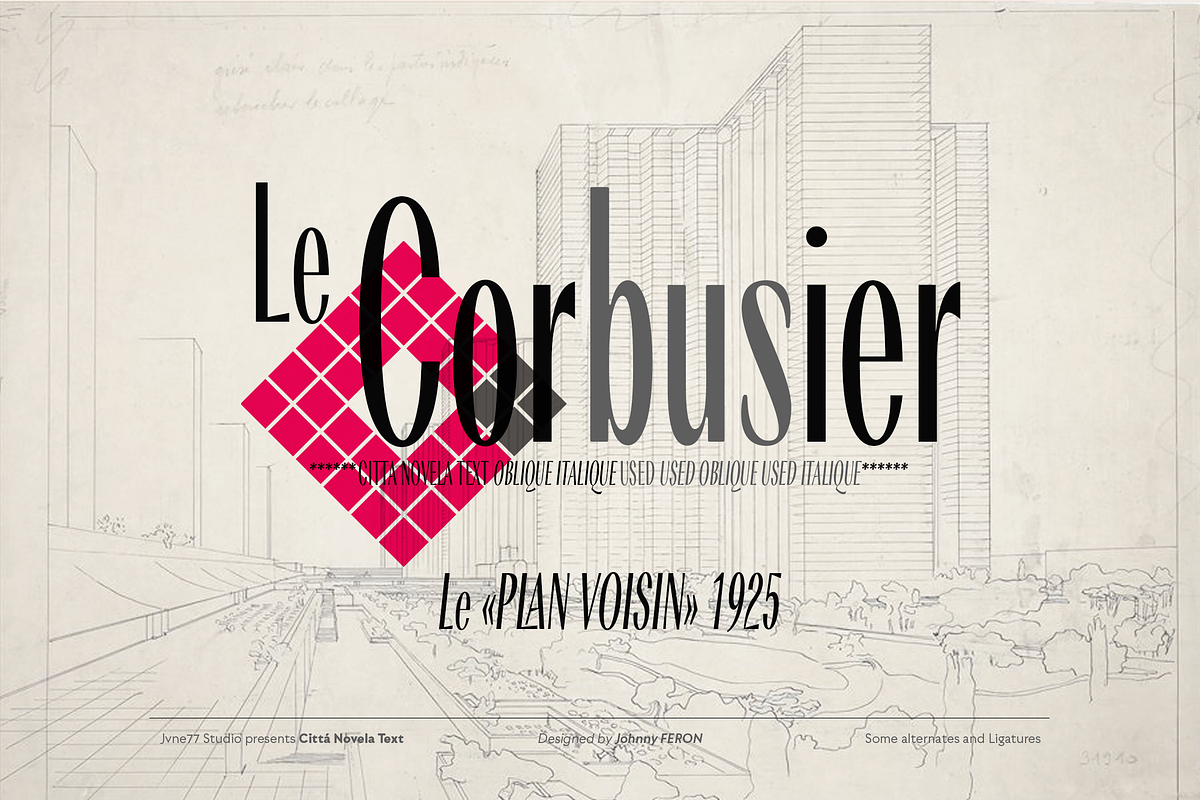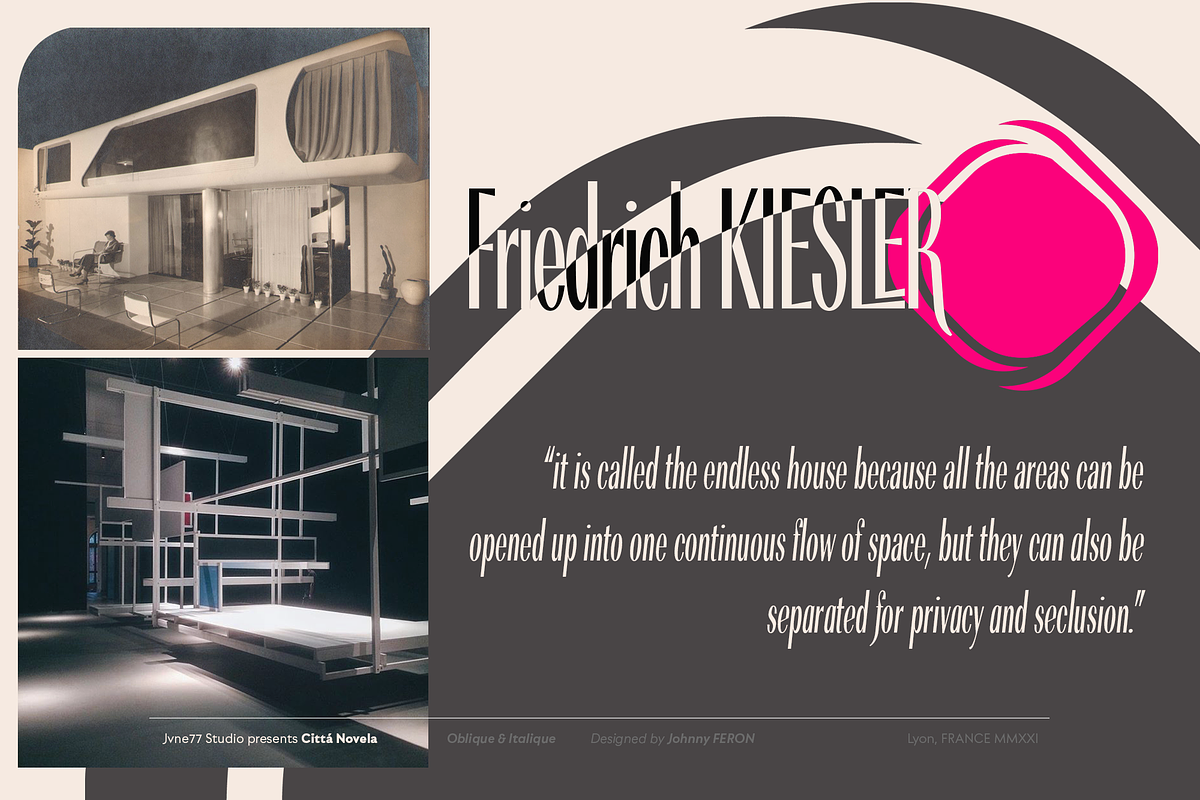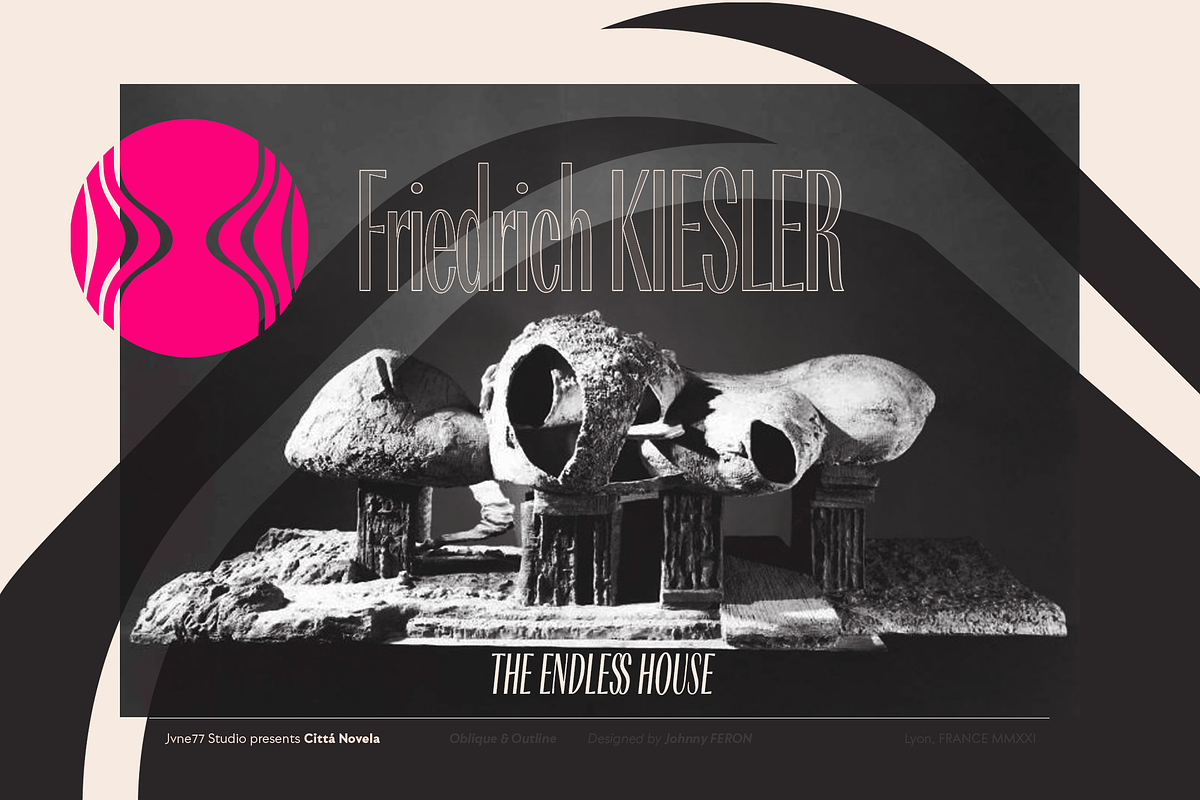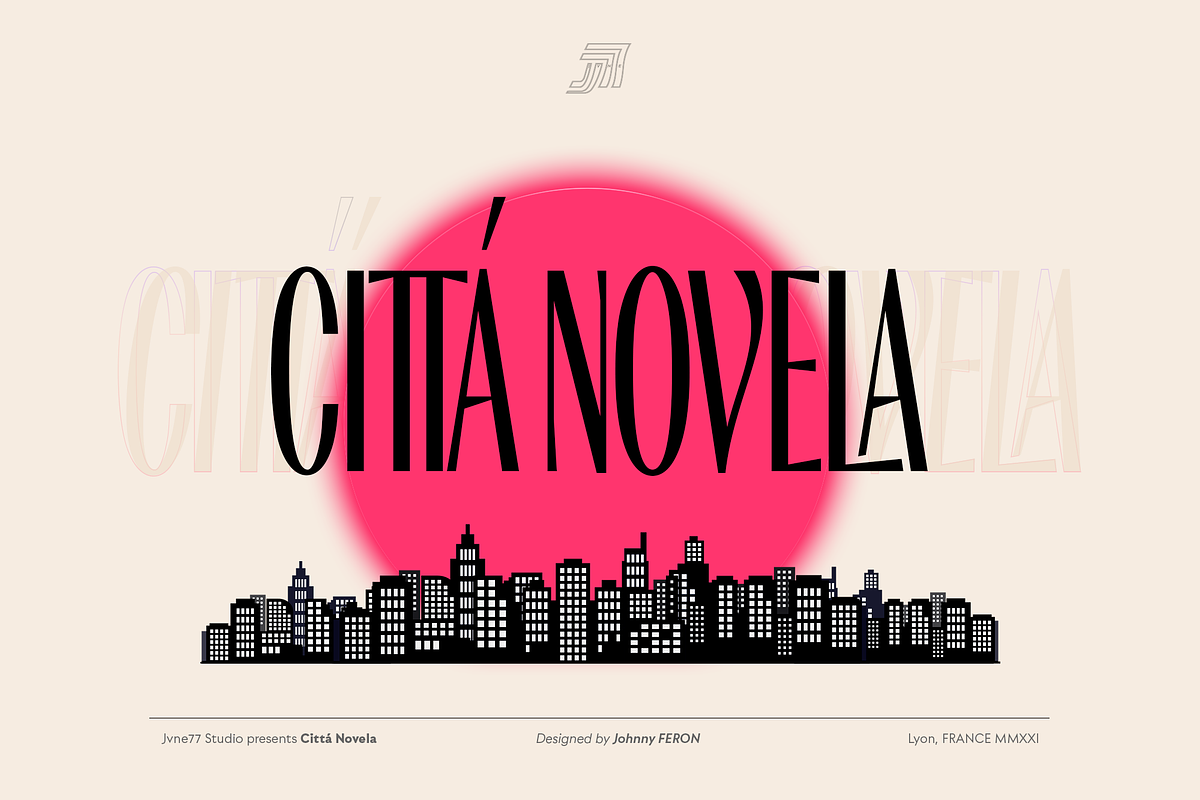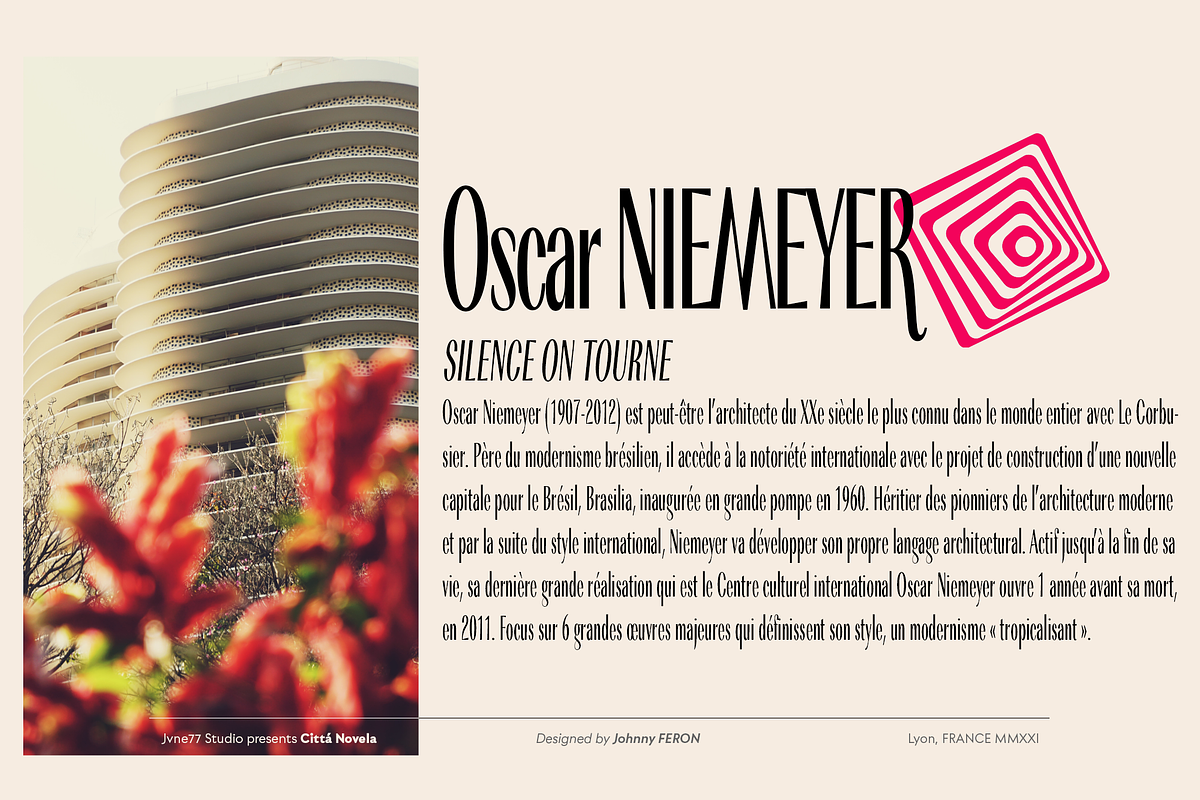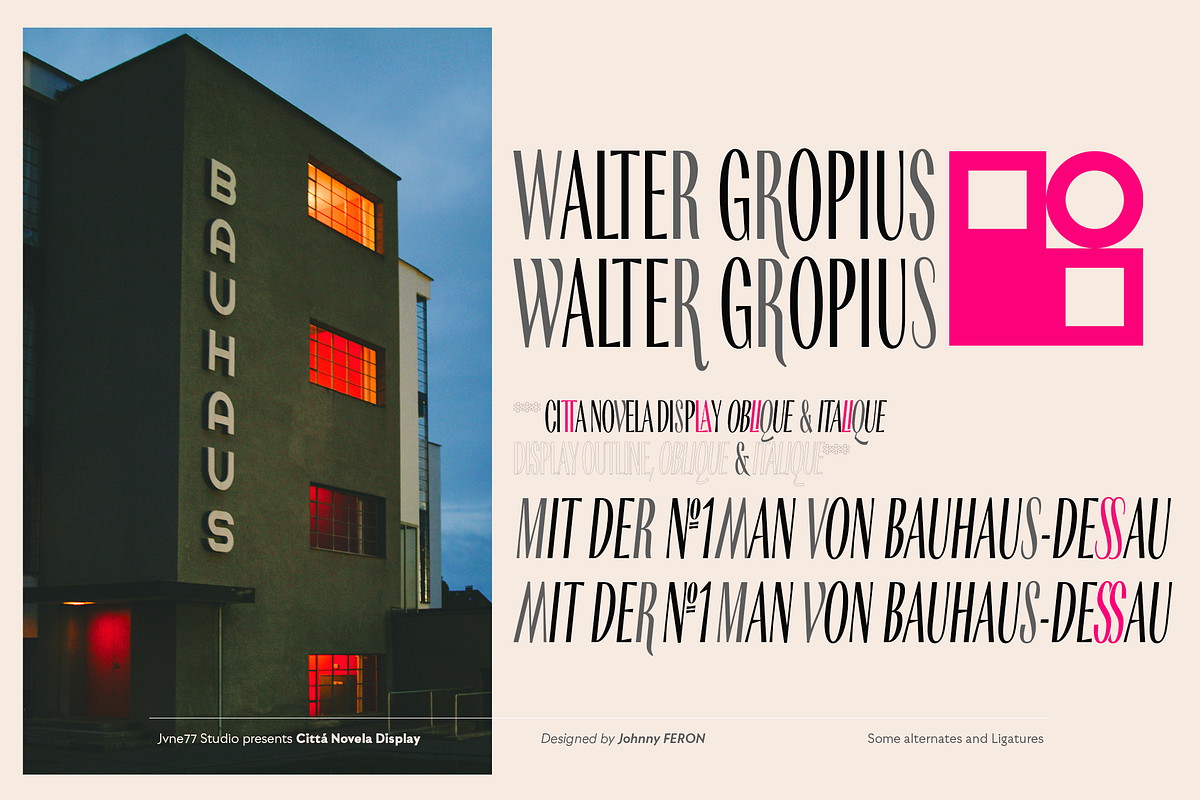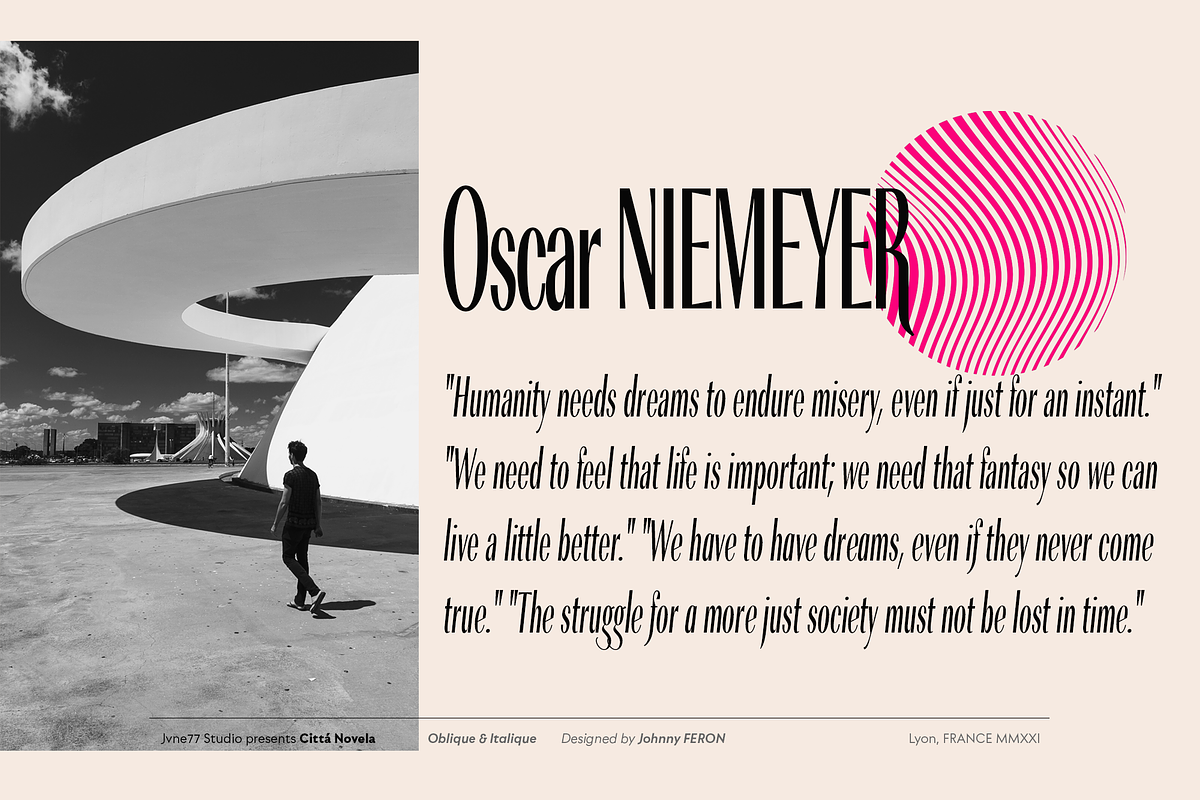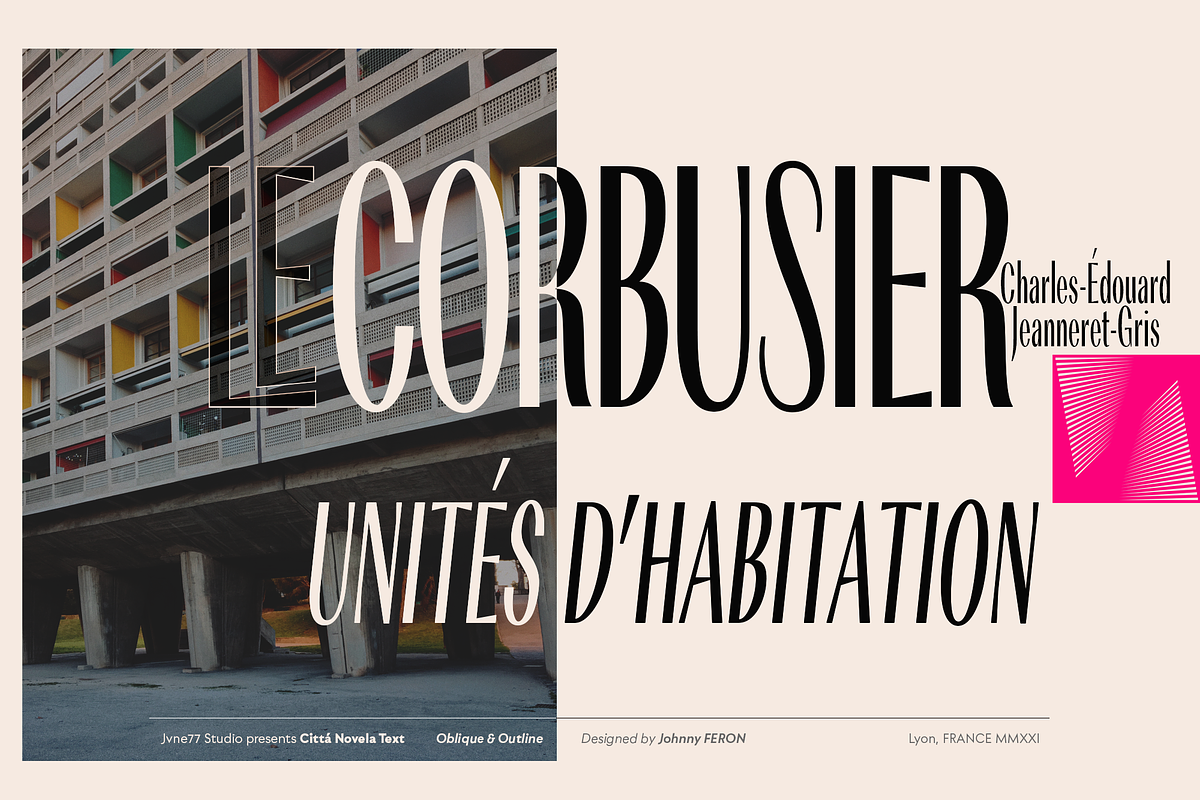
Cittá Novela family
Jvne77 Studio presents:
Cittá Novela is an upright typeface family of 12 fonts inspired by vintage architecture from the mid 20's to the 60's. A classy and didonesque streamlined sans which will perfectly set in a poor line space for Titling and text. Multilingual, diacritics, ligatures and alternates for near 570 glyphes.
The family set include: